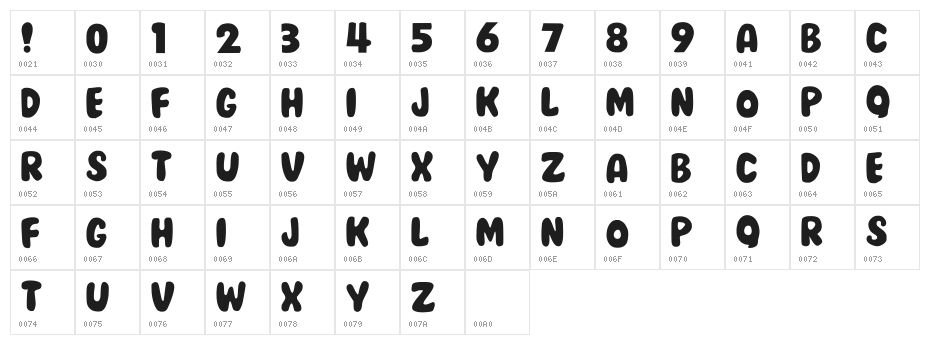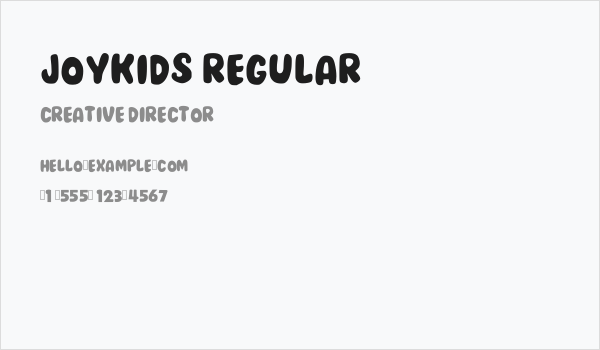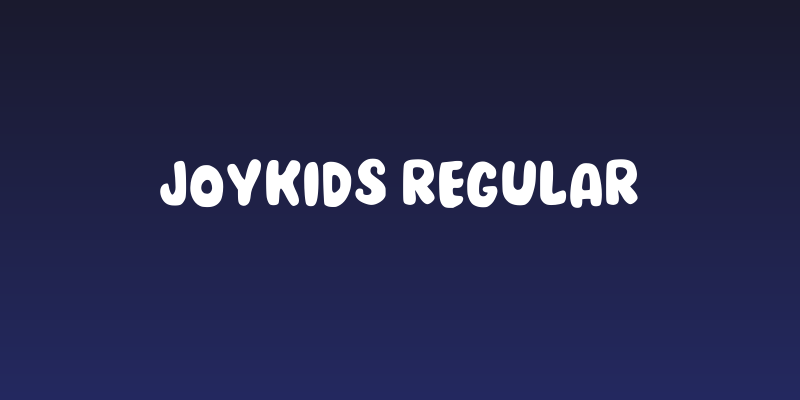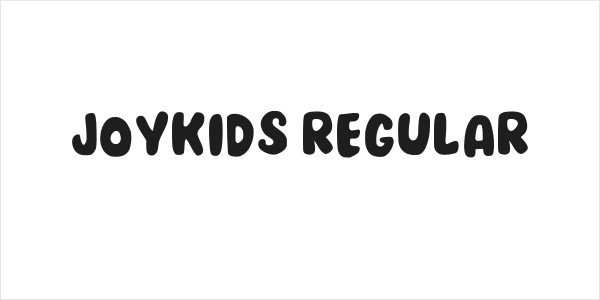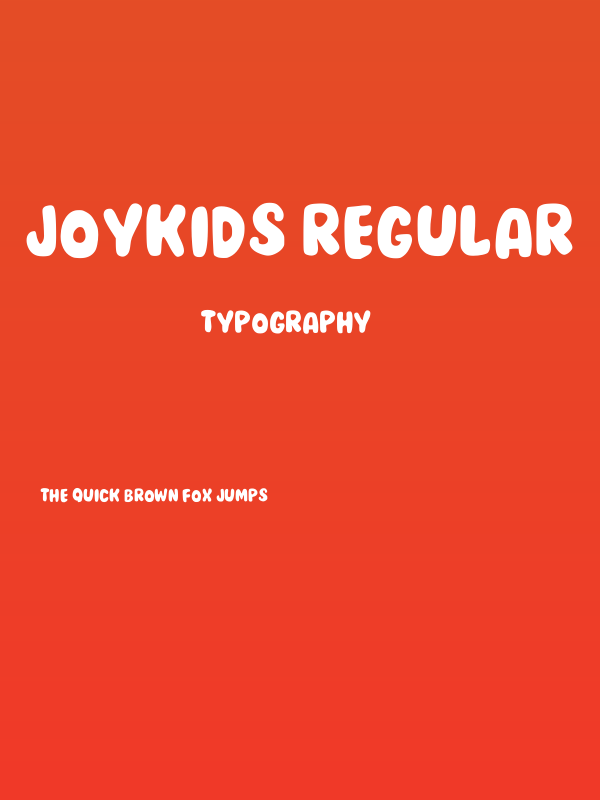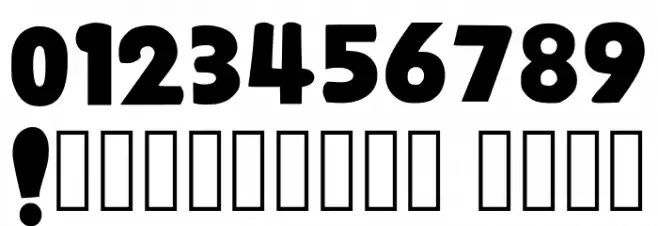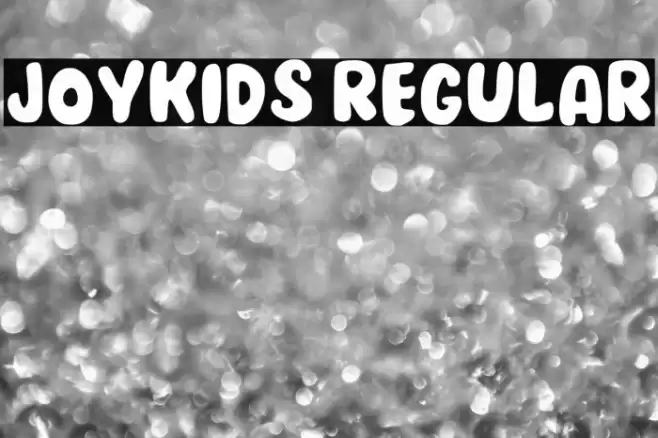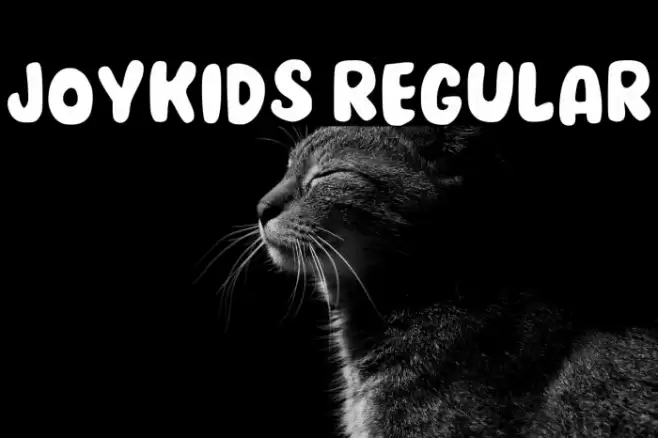
Joykids Regular Font
Joykids Regular Description
This playful and bold font features rounded, bubbly characters that exude a sense of fun and whimsy. The letters are thick and uniform, with a consistent stroke width that gives them a solid, impactful appearance. The rounded edges and soft curves contribute to a friendly and approachable aesthetic, making it ideal for children's materials or any project that requires a lighthearted touch. The numbers and special characters maintain the same playful style, ensuring a cohesive look across all text elements.
| Proposed Projects | Ideal for children's books, educational materials, playful branding, and party invitations. |